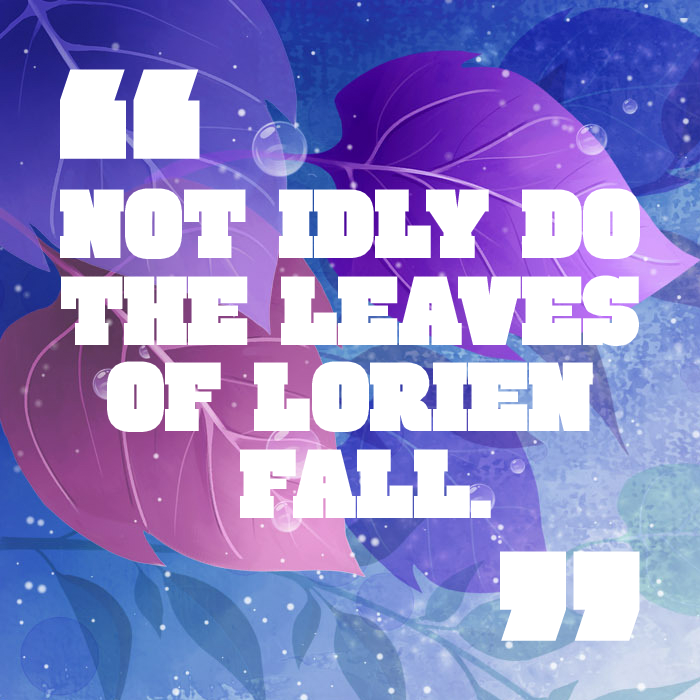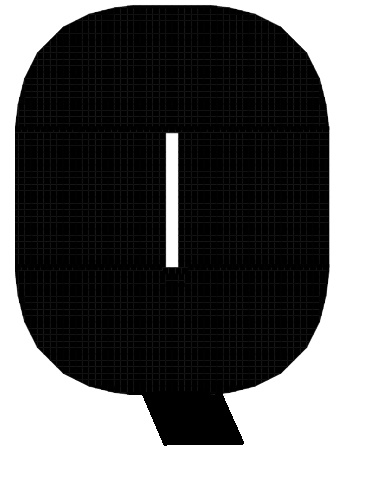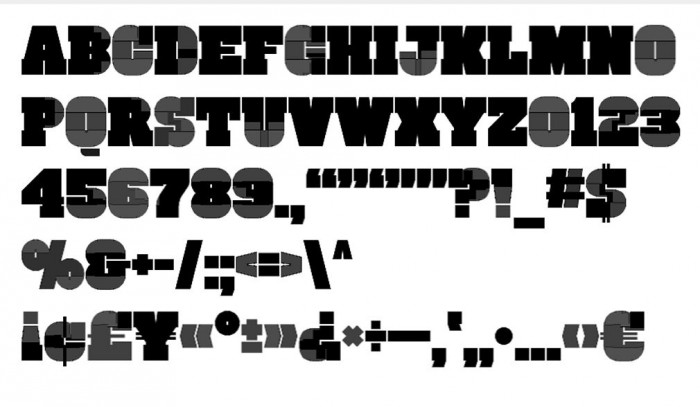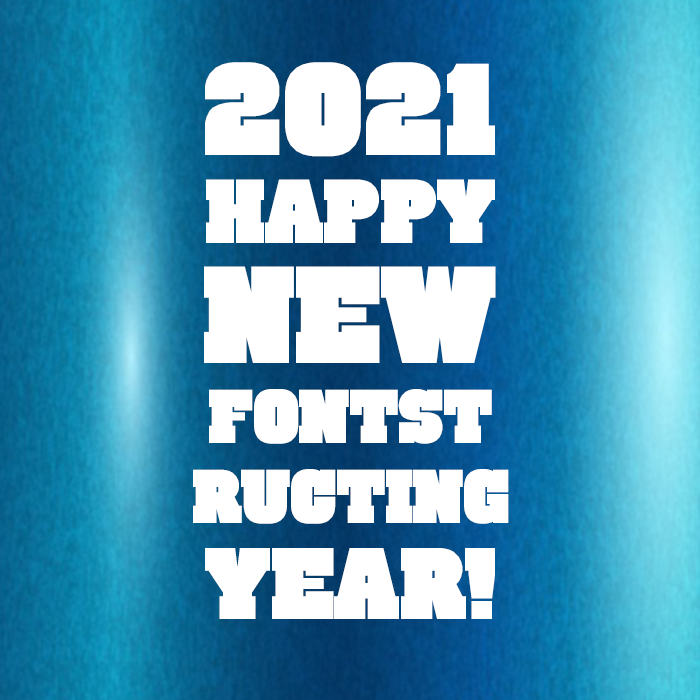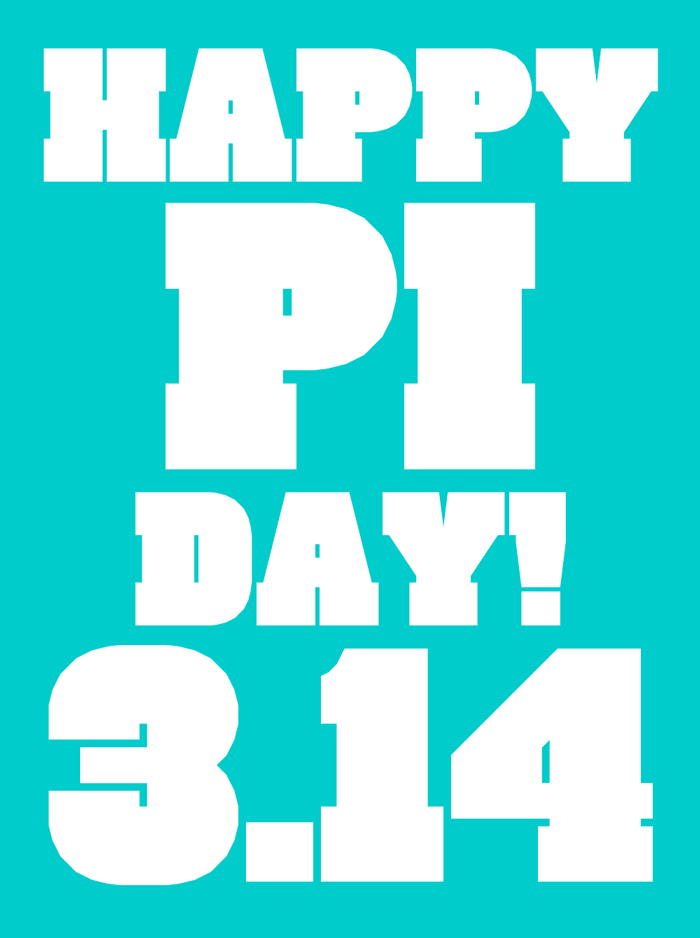
This is a heavy slab serif inspired by similar contemporary typefaces, such as Akimoto, Bloque, Facebuster, Giza, Gravity, and Rotula. All capitals. Work in progress: diacritical marks, full set of punctuation, and more special characters will follow.
Esgaroth: or Lake-town; human settlement on the Long Lake from Tolkien's novel The Hobbit.
There is not enough room for a decent lower case "s". Besides, people hardly use lower case letters of heavy slabs. Why the six hearts? Why not spades or diamonds?
@brynda1231: It was not the ellipsis, but two quotation marks one after another. I've just added the ellipsis (...) so as to avoid confusion. I also changed letter R: it is much more streamlined now. The original version is still visible in the demo picture.
@brynda1231: As I wrote above, diacritical marks to support the extended Latin set are on my list. Cyrillic/Russian set would be the logical next step. I haven't seen many super heavy fonts supporting Cyrillic script. I'll sleep on it.
Demo picture: I used a wallpaper image with leaves as background. There are a plethora of beautiful images on the web with no strings attached. The text is set on 3 different layers: one for the text proper, and two for the quotation marks, respectively. I used Adobe Photoshop for the layers and optical kerning.
Q: I was quite content with my Q, but your version - I have to admit - looks better. I'm not sure I could build it with the nudging in place for overshoot.
—Really like this one. :) I actually prefer your original Q; then again, I'm very partial to the tilde-esque form of Q. I would maybe design the tail like the bottom half of "z"—if you want it connected, that is?
@architaraz: I'm working on the Q, but it's not easy. There is a complex application of the nudge function and custom made bricks there for overshoot. Attempts to introduce full bricks in normal position resulted in narrow gaps which I could only shift, but not eliminate.
If I could clone this I'd mirror the tail and level to the right edge, joining to the body to where the curve starts with a solid line. If you had a Lower Case set you could use that for any letters that change from the Upper Case original design letters.
Looking at the font in the site's preview I saw an interesting effect, it seems to show where you nudged?
@TCWhite: Thank you for sharing your candid view regarding the Q. As I wrote above, I was happy with my version. One important point I have to consider: The few heavy slab serifs are very similar. The letter Q is a good opportunity to distinguish my work from the others'. I have to avoid usual designs and make this letter different (but modest).
@La police de caractère: Thank you for your comment. Yes, the pixel view accidentally reveals all the nudging. A nuisance, but small price to pay for improved control over positioning bricks. As you can see, all the rounded glyphs have their tops and bottoms nudged vertically, as well as their sides, in a few cases, nudged horizontally.
@brynda1231: Actually, that was the case before. I had to remove one set - the upper case - because the fontstruction grew too big, it no longer appeared in the preview window properly.